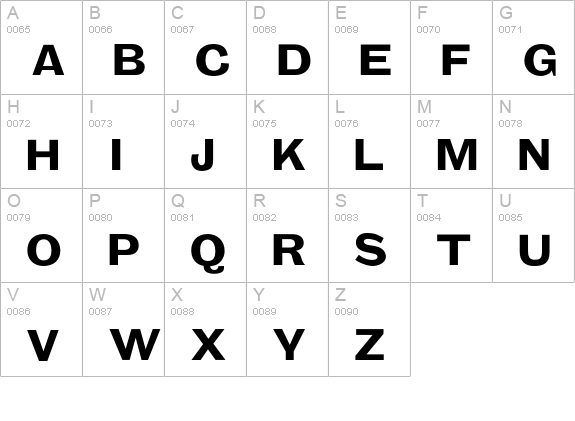
GroschenExtended font is a modern and versatile typeface that exudes elegance and sophistication. With its clean lines and sleek design, this font is perfect for a wide range of projects, from branding to graphic design. The extended version of Groschen offers additional versatility and style, making it a must-have for any designer looking to elevate their work. What's even better is that GroschenExtended font is available for free download at FontsMarket.com. This means you can easily access and use this stunning font in your projects without any cost. Don't miss out on the opportunity to enhance your designs with the timeless beauty of GroschenExtended font - download it for free today!